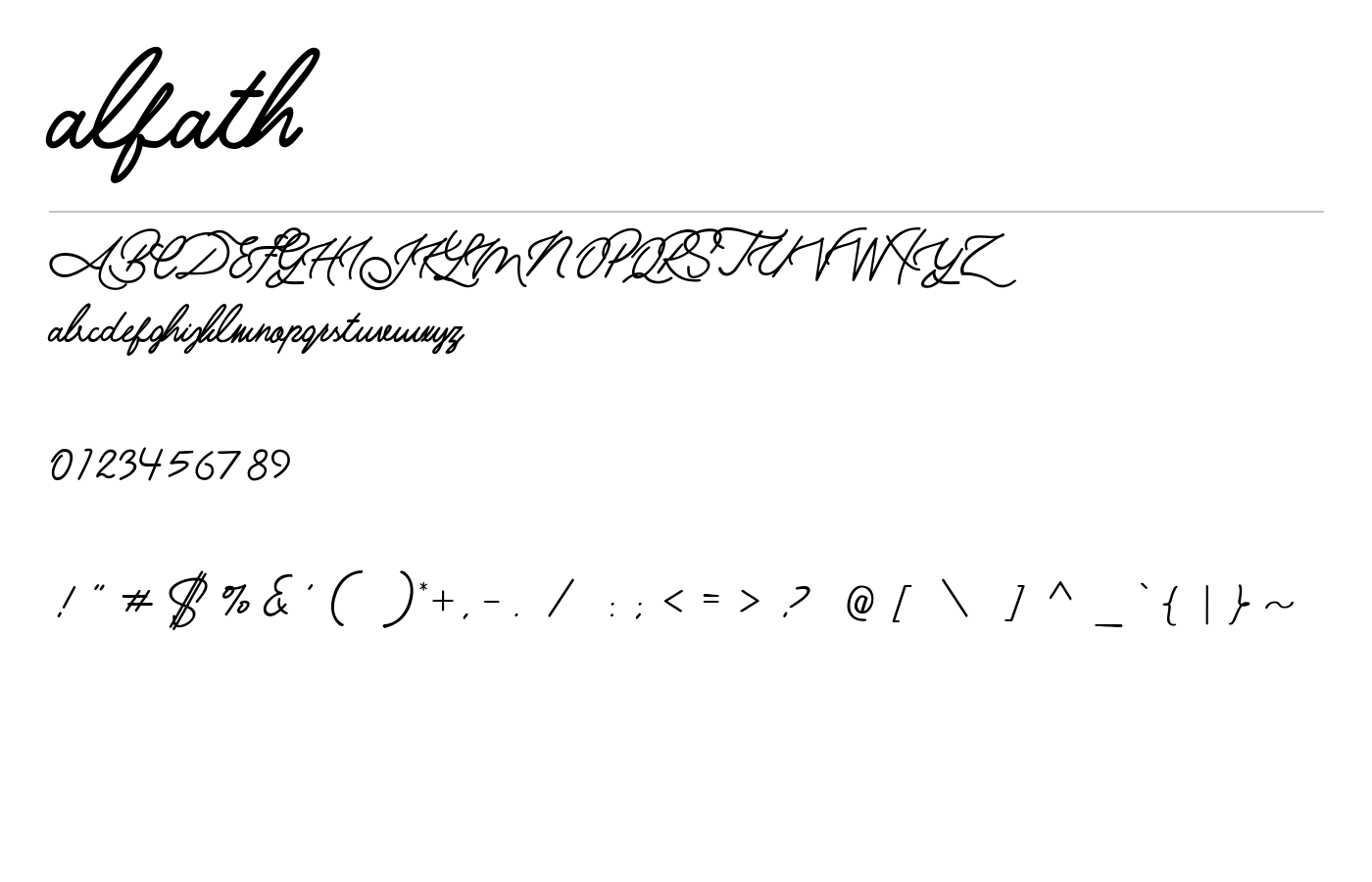
Alfath is an elegant script font characterized by its flowing, graceful strokes and delicate, connected letterforms. With a thin weight and high contrast between fine lines and curves, it exudes a refined, handwritten charm ideal for sophisticated branding, invitations, and stylish headlines. Its slender, italicized form makes it perfect for adding a touch of elegance and personality to projects that demand a classic yet artistic feel.
alfath Font
About alfath Font